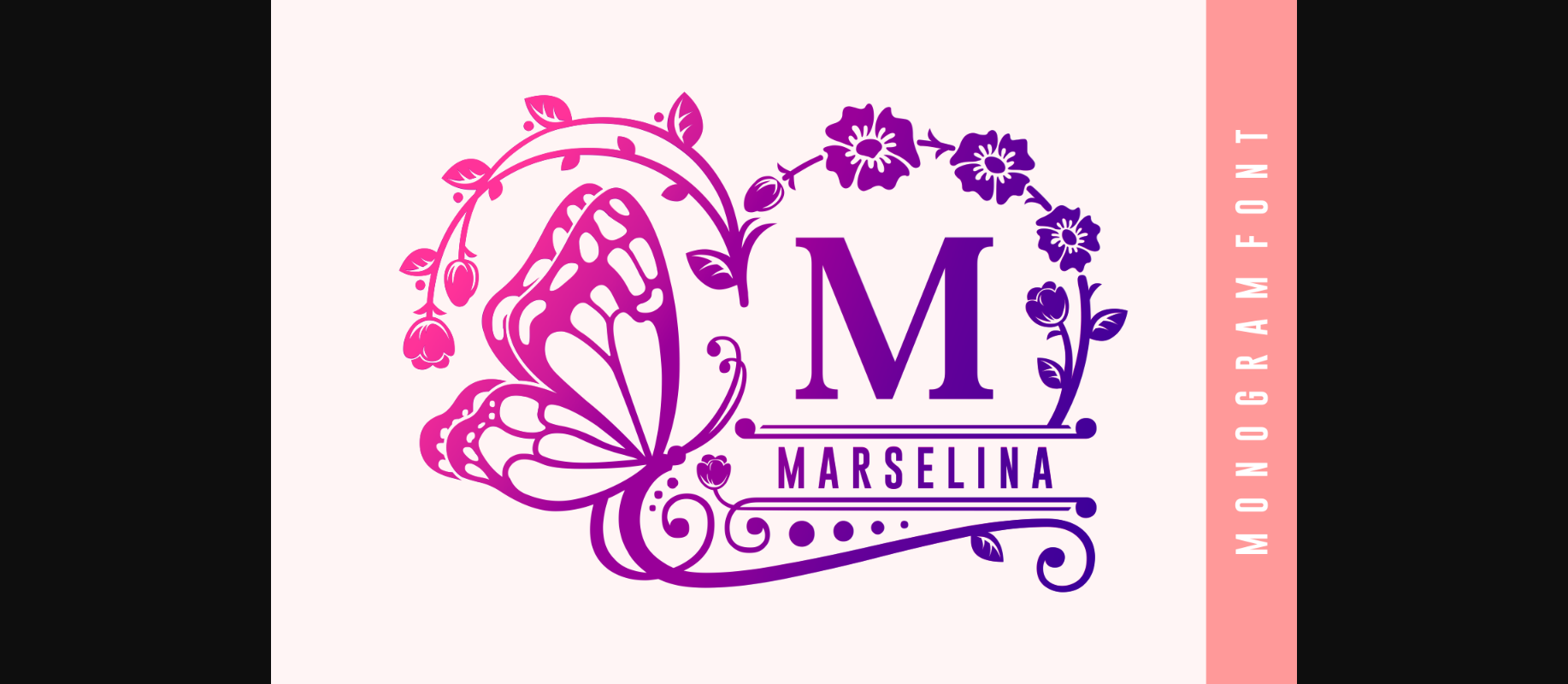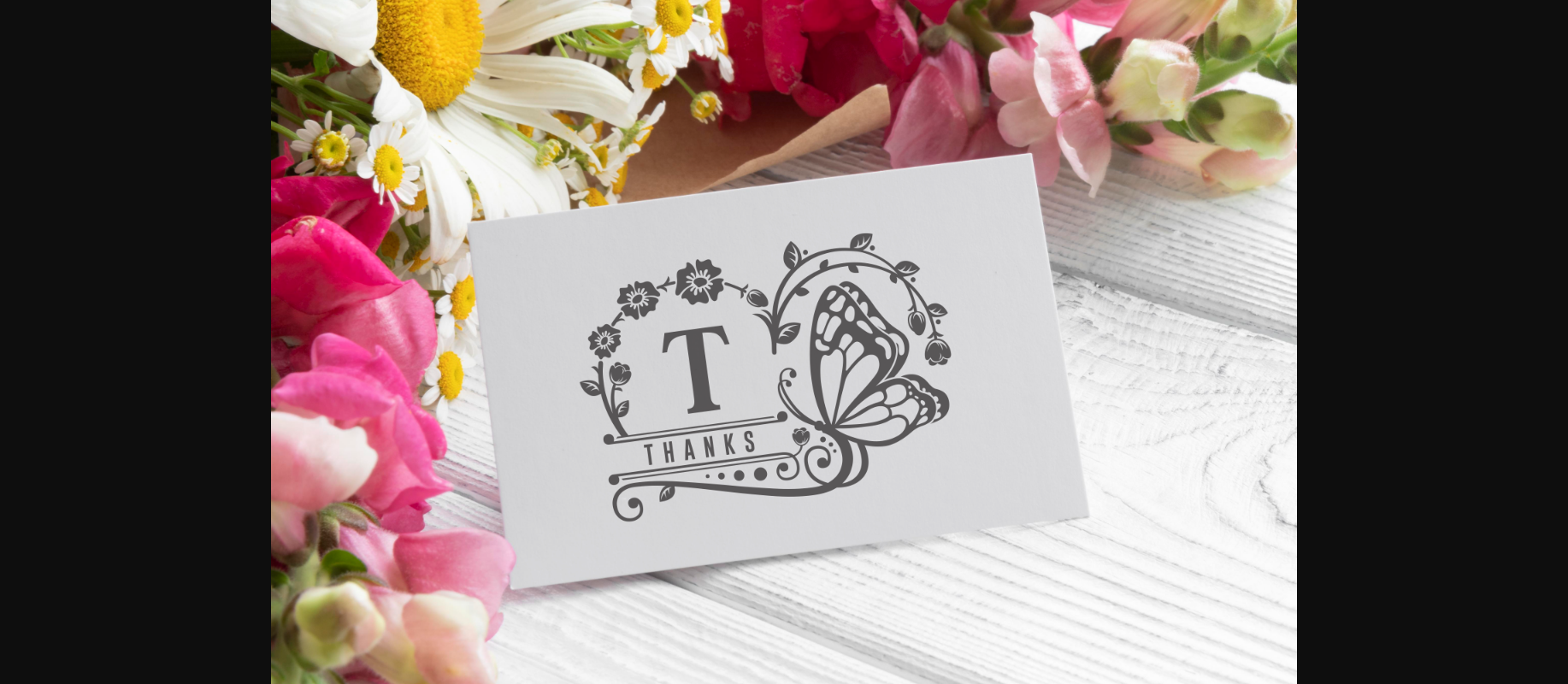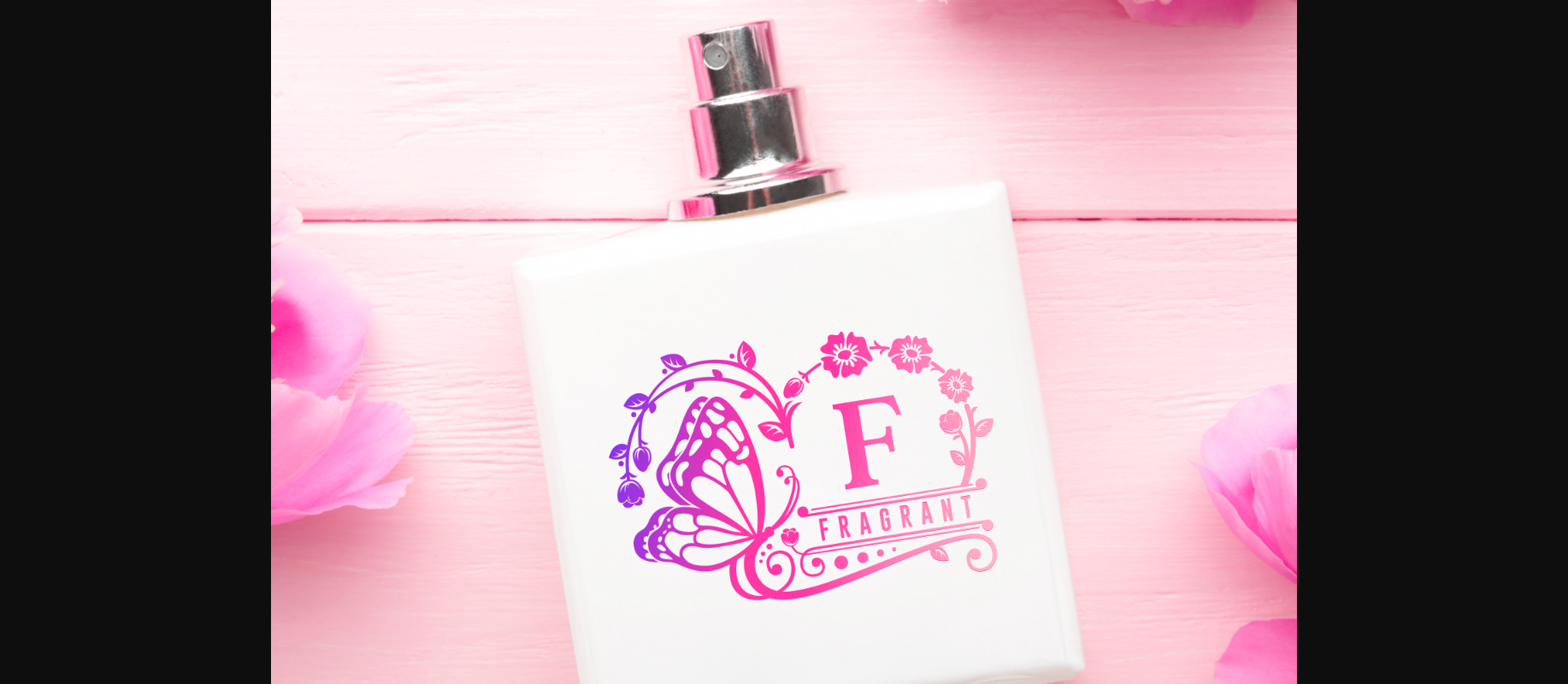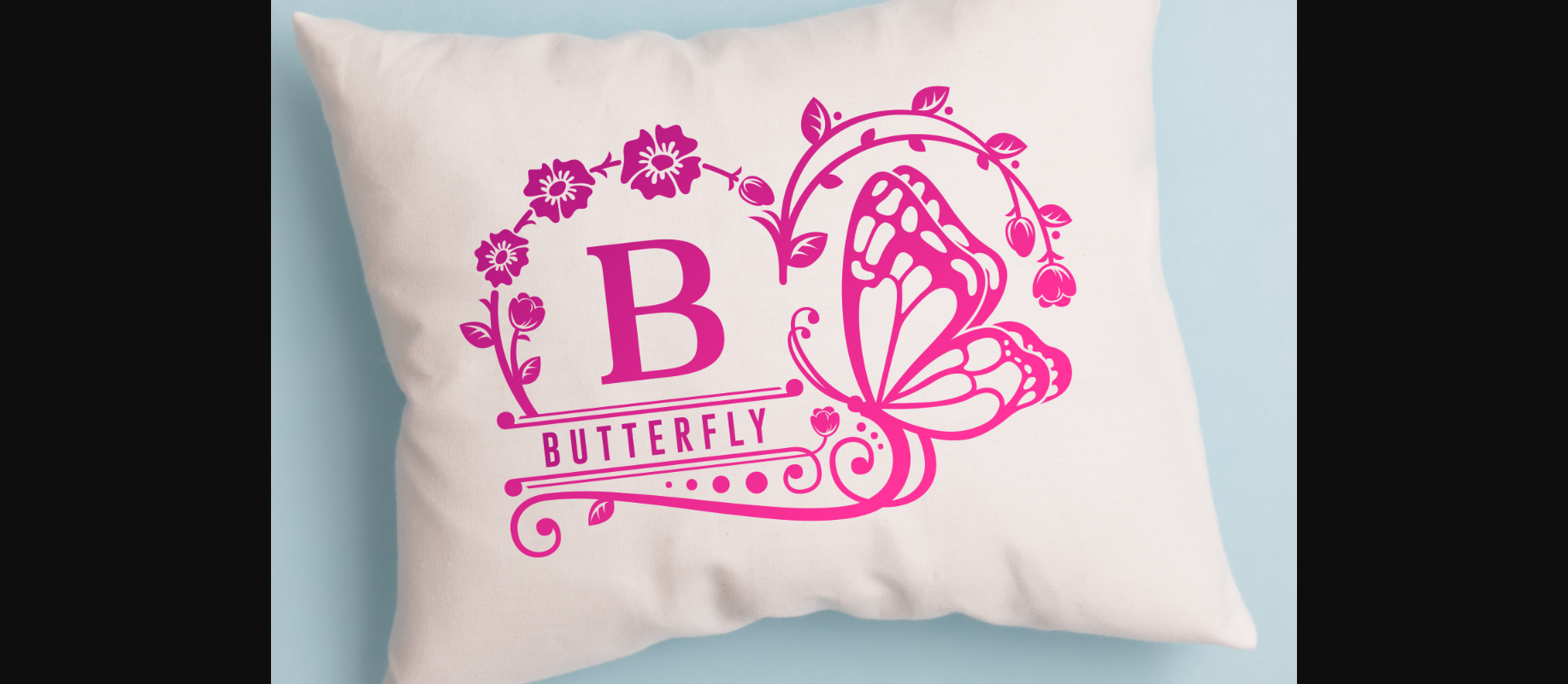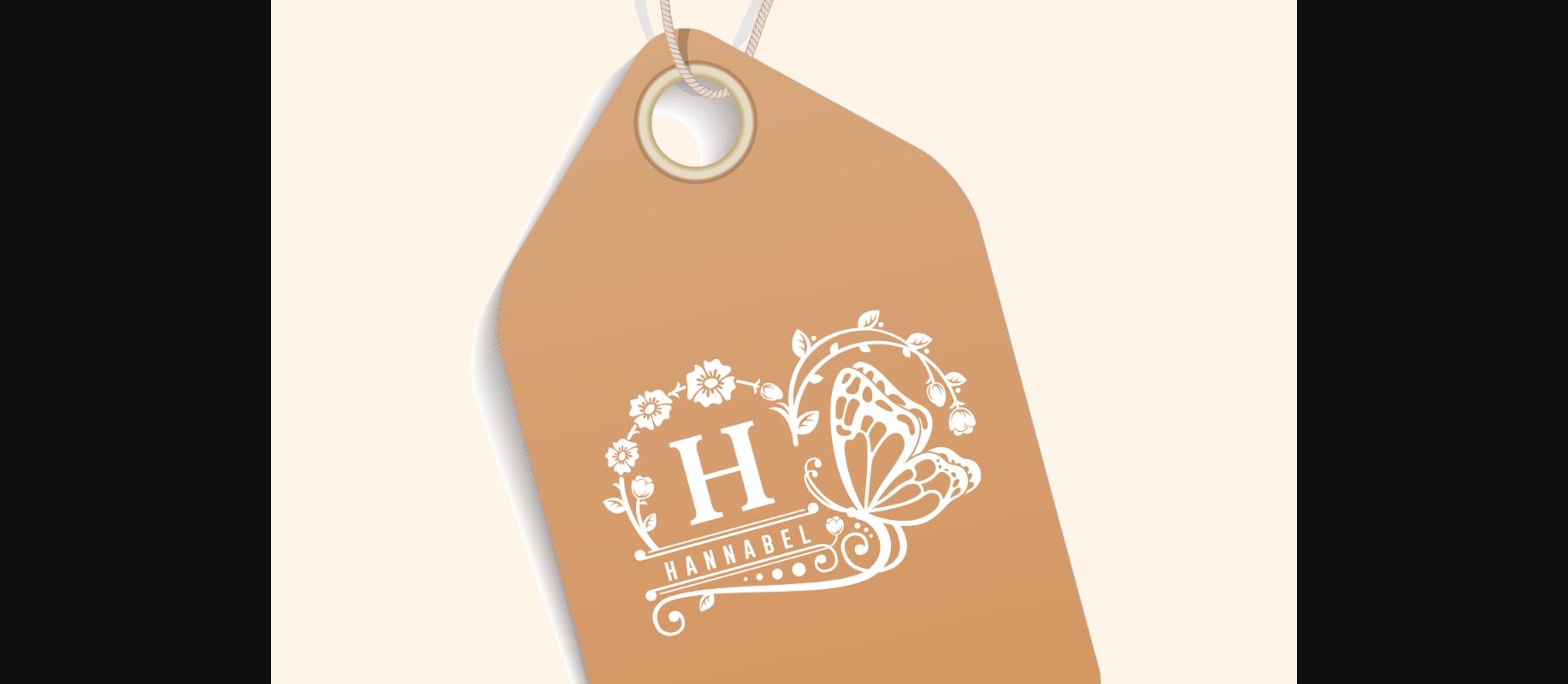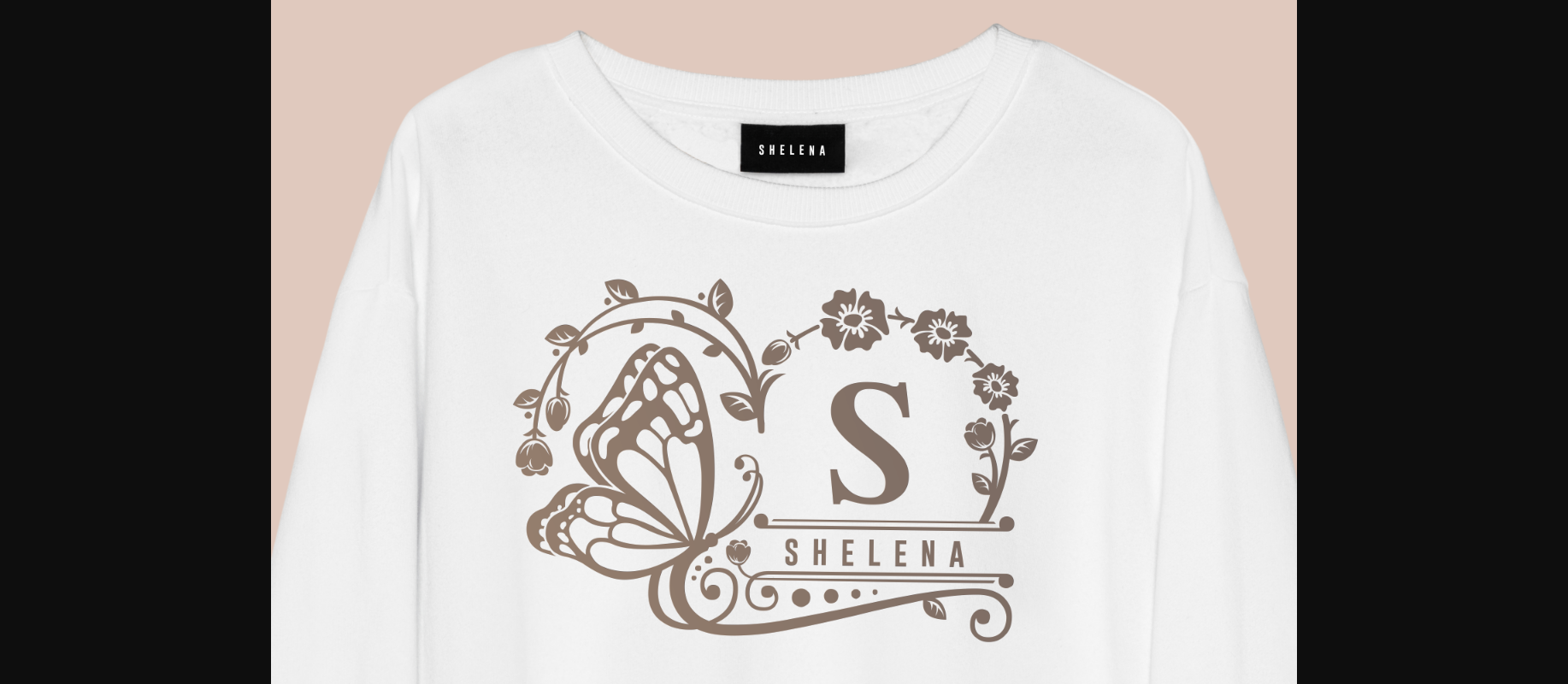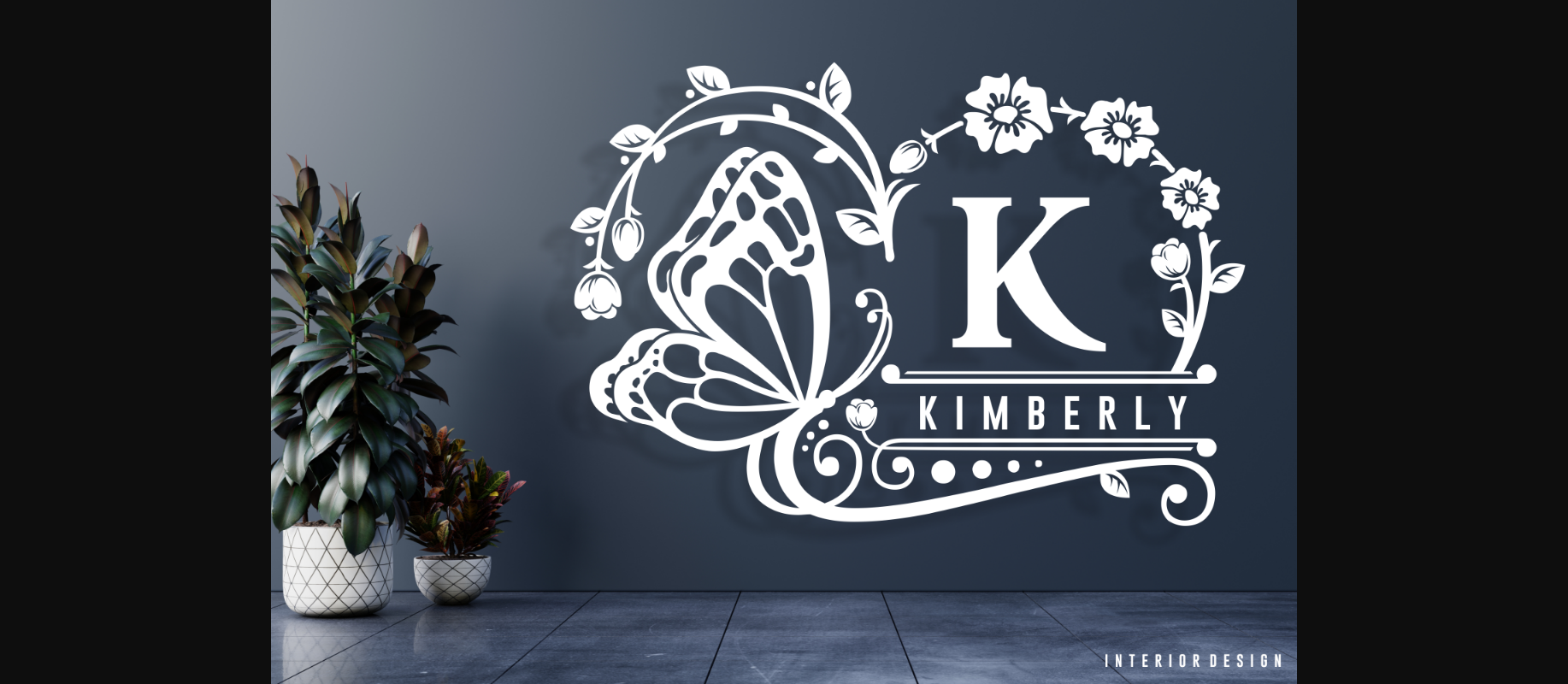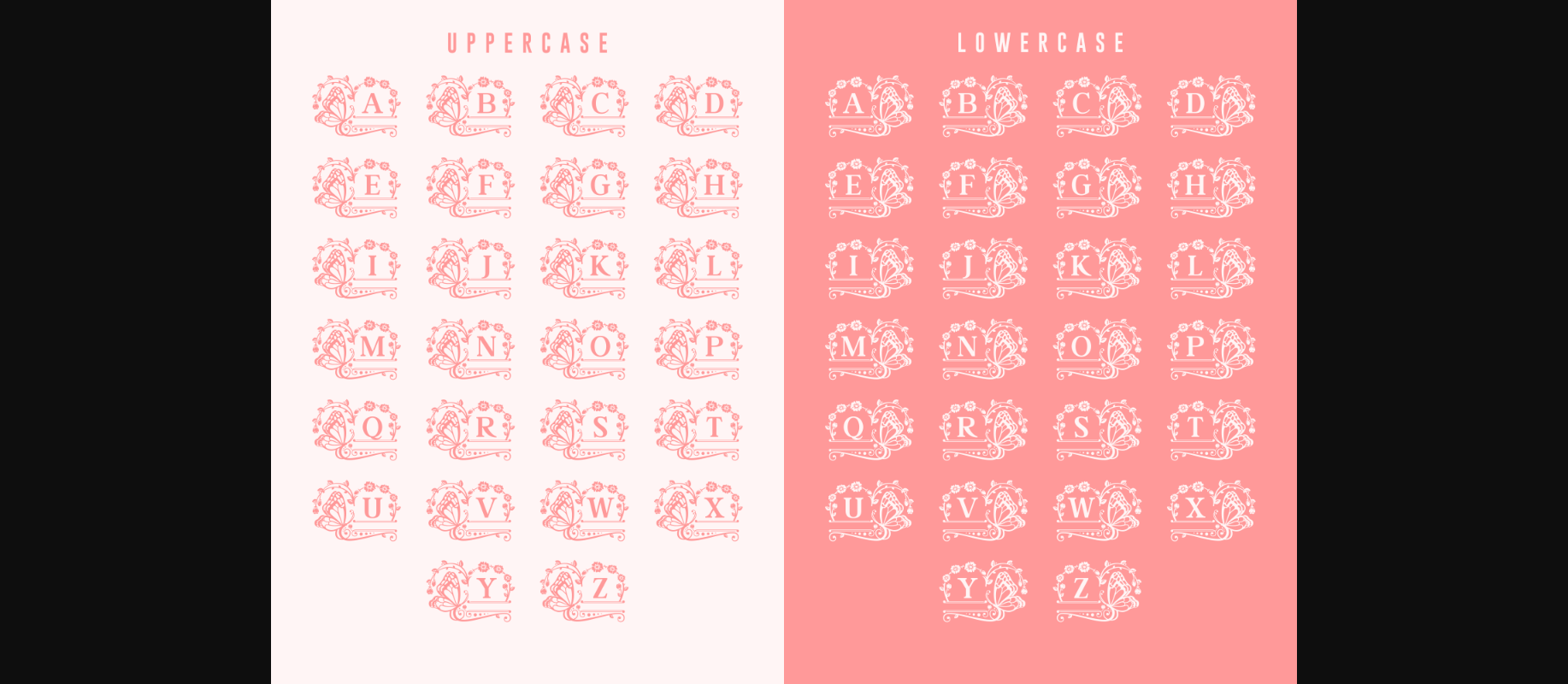
Marselina Font
About Marselina Font
Marselina is a cute and lovely decorative font featuring monogram letters with beautiful butterfly designs. With intricate details and charming flourishes, this font is perfect for creating personalized invitations, stationary, and other charming designs. Ideal for anyone who wants to add a touch of whimsy and elegance to their projects.